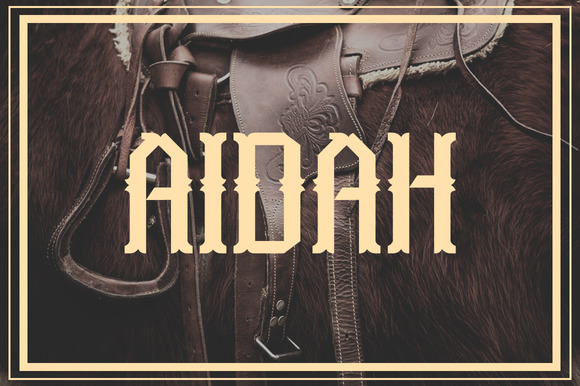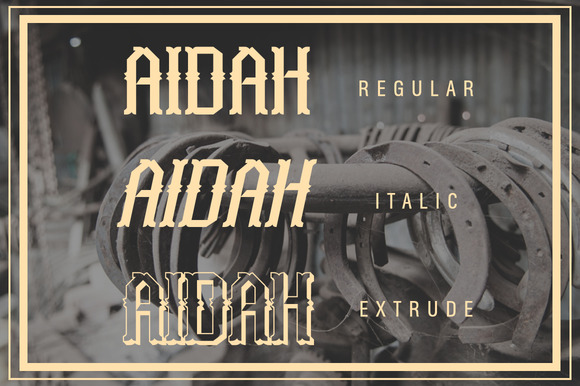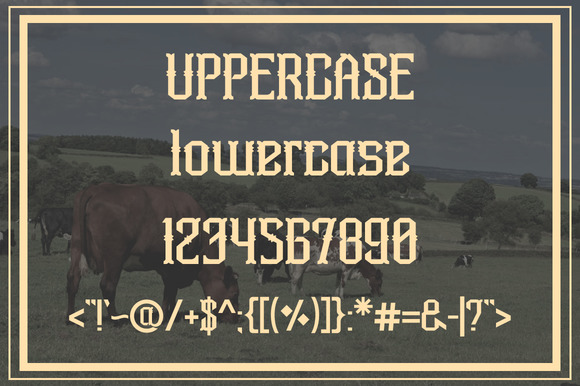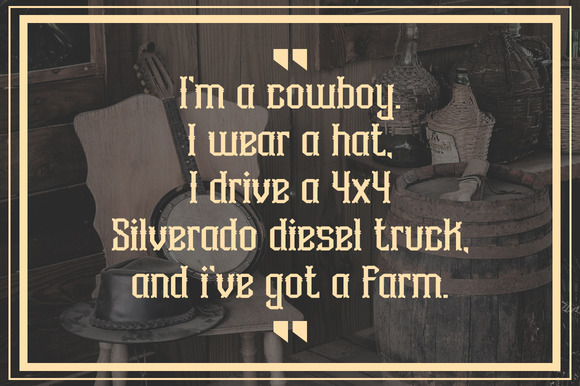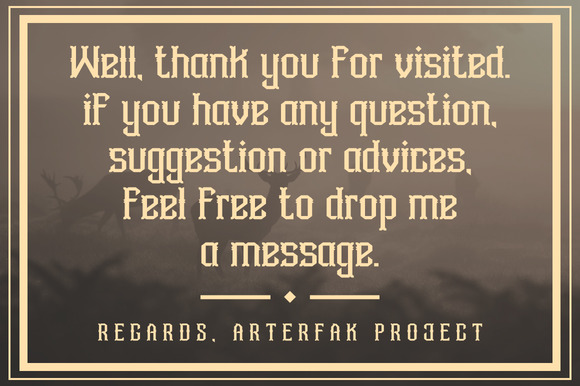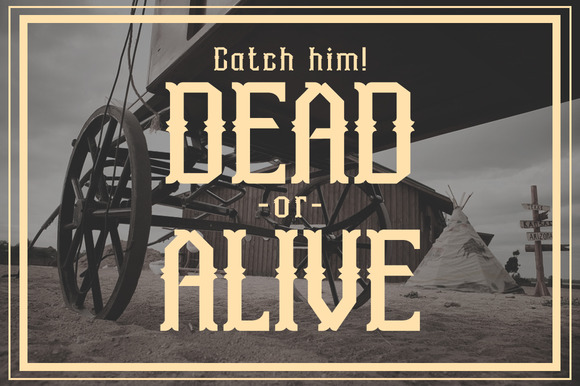
Aidah Font
Aidah Font: A Versatile Slab Serif with Multiple Styles
The Aidah Font is a unique slab serif typeface that offers designers a versatile tool for creating impactful and stylish typography. This font family combines classic slab serif characteristics with modern design elements, making it suitable for a wide range of design projects.
Key Features of Aidah Font
• Multiple Styles: Aidah comes with 3 different styles, providing flexibility for various design needs.
• Comprehensive Character Set: Includes uppercase, lowercase, numbers, and standard punctuation.
• Versatile Application: Suitable for headings, logos, posters, flyers, quotes, and vintage designs.
Ideal Uses for Aidah
Aidah’s versatile design makes it particularly well-suited for:
• Eye-catching headlines and titles
• Logo design and branding projects
• Poster and flyer designs
• Quote graphics and social media content
• Vintage-inspired designs
Comparison with Other Slab Serif Fonts
While Aidah shares characteristics with other slab serifs like Tecnica Slab Family, its unique styles set it apart. Unlike more traditional slab serifs such as Osgood Slab, Aidah offers a more contemporary and versatile approach to typography.
When incorporating Aidah into your designs, consider the following tips:
• Experiment with different styles to create hierarchy and visual interest in your layouts
• Use for both headlines and short blocks of text to showcase its versatility
• Pair with sans-serif fonts for a balanced, modern look
• Consider using it in projects where you want to combine classic slab serif structure with contemporary flair
Aidah Font is an excellent choice for designers looking to add a versatile and stylish slab serif to their typographic toolkit. Its range of styles and comprehensive character set make it stand out in the world of typography. Whether you’re working on logo designs, editorial layouts, or creating eye-catching poster designs, Aidah offers the perfect blend of classic structure and modern aesthetics.
Explore how Aidah can elevate your design projects with its multiple styles and versatile application. From vintage-inspired branding to contemporary editorial designs, this font provides the tools to create impactful and stylish typography that stands out in various design contexts.